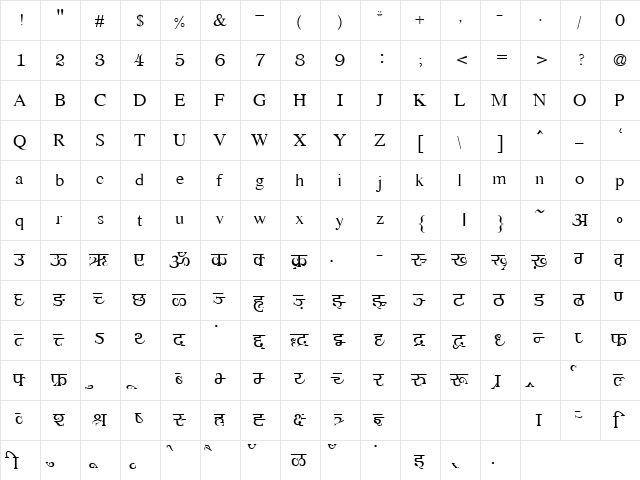
AkrutiDev_BAditi Normal
Design Context for AkrutiDev_BAditi Typeface
AkrutiDev_BAditi offers clean, dependable letterforms without strong stylistic allegiance, making it a practical choice for designers who need flexibility.